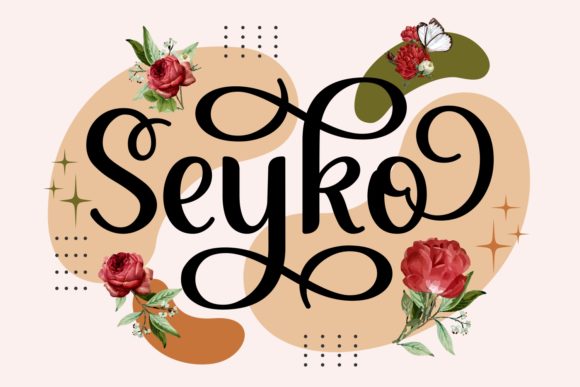
Seyko Font: Elevate Your Designs with a Beautiful and Magical Handwritten Font
Are you looking for a font that can add a touch of elegance and whimsy to your designs? Look no further than Seyko Font, a stunning handwritten font that is sure to captivate your audience. In this article, we’ll explore the features and benefits of Seyko Font, and show you how to use it to take your designs to the next level.
What is Seyko Font?
Seyko Font is a beautiful and magical handwritten font that is designed to enhance the beauty of your projects. With its balanced and varied strokes, Seyko Font is the perfect choice for designers who want to add a personal touch to their work. Not too thin and not too thick, Seyko Font is a versatile font that can be used for a wide range of design applications, from branding and advertising to packaging and digital media.
Key Features of Seyko Font
- Balanced and varied strokes: Seyko Font features strokes that are carefully crafted to be neither too thin nor too thick, creating a beautiful and harmonious visual effect.
- Handwritten with love: Seyko Font is a true handwritten font, created with love and care to give your designs a personal and authentic feel.
- Magical and elegant: Seyko Font has a magical quality that will add a touch of whimsy and wonder to your designs, making them stand out from the crowd.
- Versatile and flexible: Seyko Font can be used for a wide range of design applications, from headings and titles to body text and more.
Benefits of Using Seyko Font
So why choose Seyko Font for your designs? Here are just a few benefits of using this amazing font:
- Add a personal touch: Seyko Font is a handwritten font that will add a personal and authentic feel to your designs, setting them apart from the competition.
- Enhance your brand: With Seyko Font, you can create a unique and memorable brand identity that will resonate with your audience.
- Increase engagement: Seyko Font’s magical and elegant quality will captivate your audience and draw them in, increasing engagement and conversion rates.
Seyko Font in Action
So what does Seyko Font look like in action? Here are a few examples of how Seyko Font can be used in different design applications:
Branding and Advertising
Seyko Font is a great choice for branding and advertising, adding a personal and authentic feel to your campaigns.
Packaging Design
Seyko Font is also a great choice for packaging design, adding a touch of elegance and whimsy to your product packaging.
Digital Media
Seyko Font can also be used in digital media, such as social media graphics, blog posts, and more.
In conclusion, Seyko Font is a beautiful and magical handwritten font that is sure to elevate your designs. With its balanced and varied strokes, Seyko Font is a versatile font that can be used for a wide range of design applications. Whether you’re looking to add a personal touch to your branding and advertising, or want to create a unique and memorable packaging design, Seyko Font is the perfect choice.